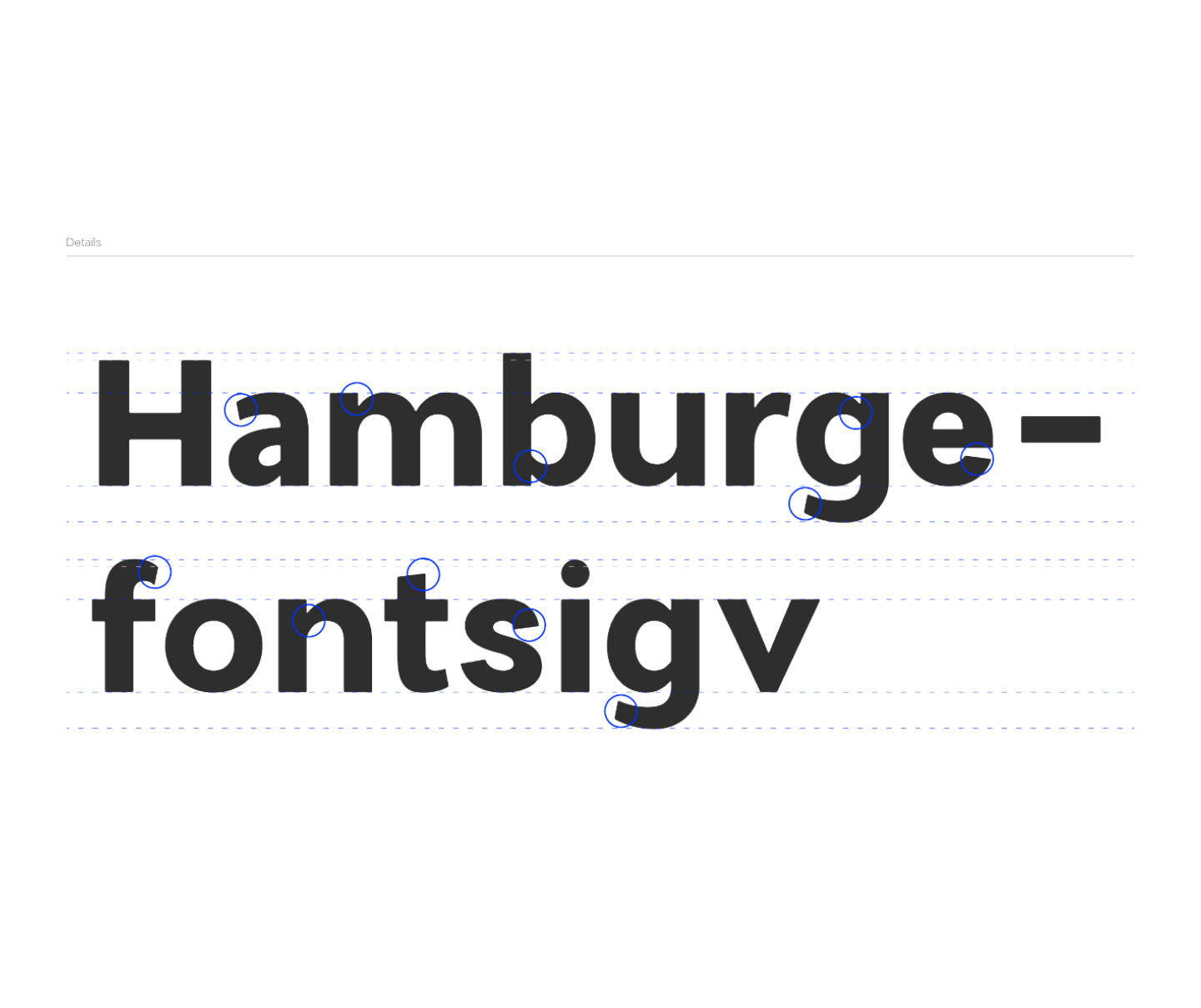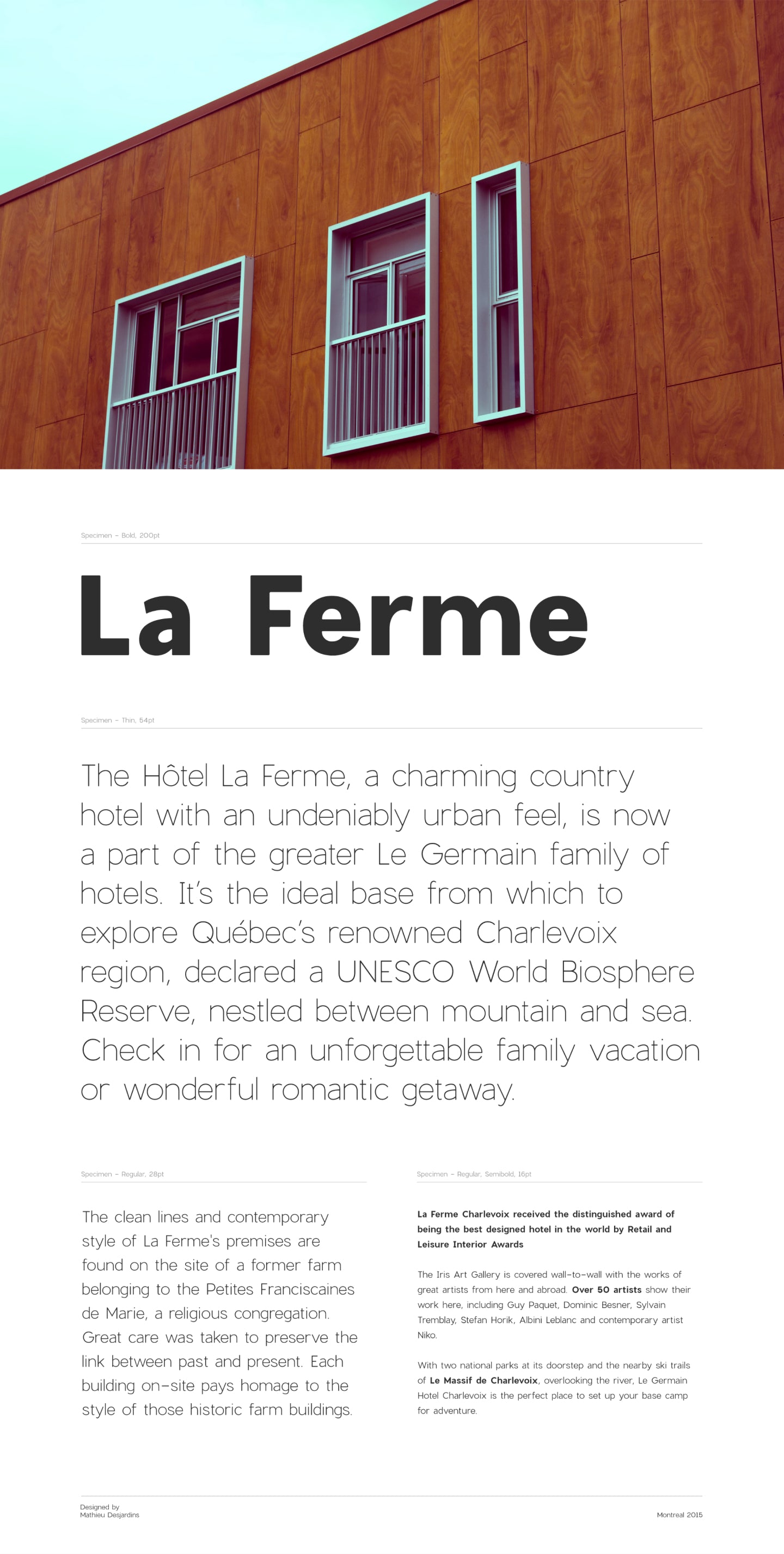
Charlevoix Pro is a beautiful display typeface inspired by one of Quebec's greatest region.
It is strong and bold like Charlevoix's hills and mountains and fluid like the water of the Saint-Laurent river.
7 styles with 325 glyphs each.
Language support for the Americas and all of Europe.
Designed by Mat Desjardins